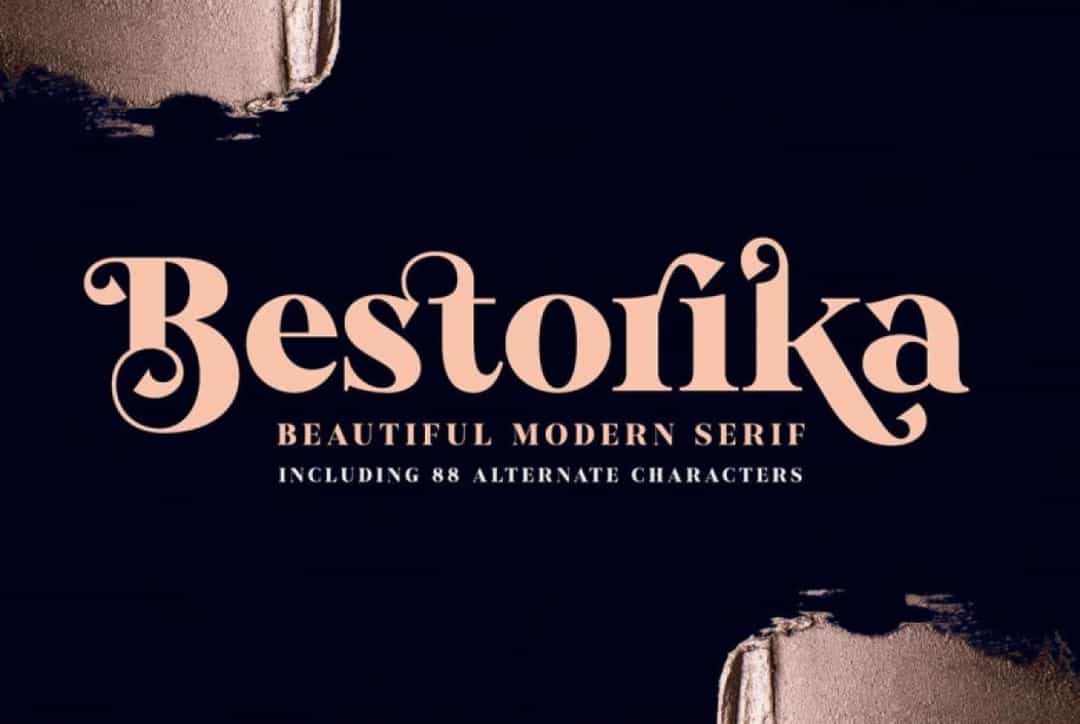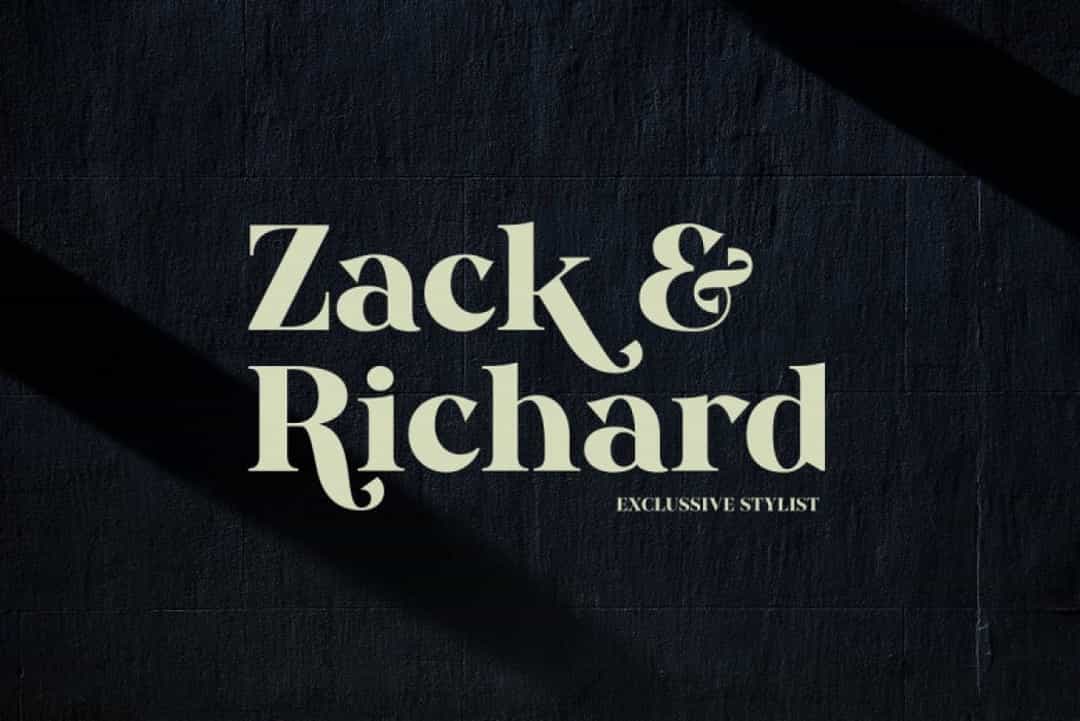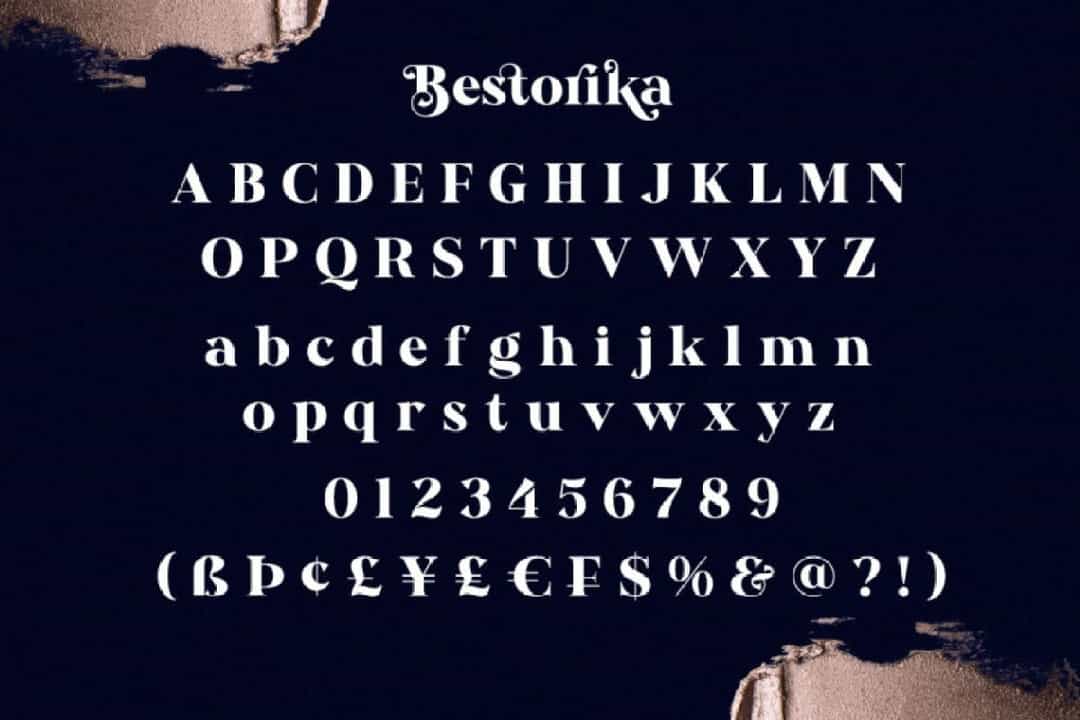
Bestorika Beautiful Modern Serif Font is an exciting font with strong contrast lines and well-balanced curves, ideal for classic, conservative or playful applications. Explore various stylish alternatives available such as combination curves or basic letters; both these features give this font its modern charm. Like my other fonts, Bestorika Modern Serif Font echoes past lettering while maintaining its contemporary vibe.